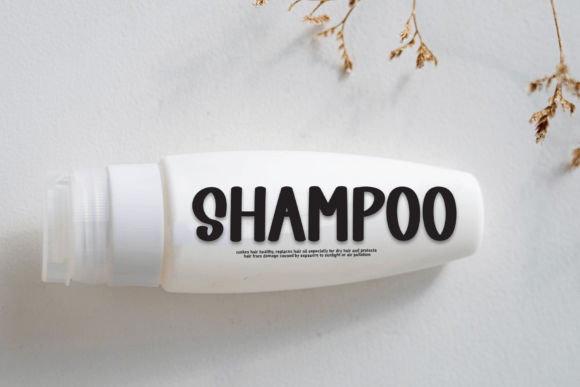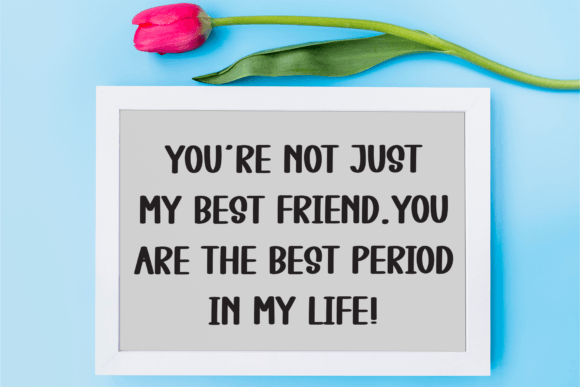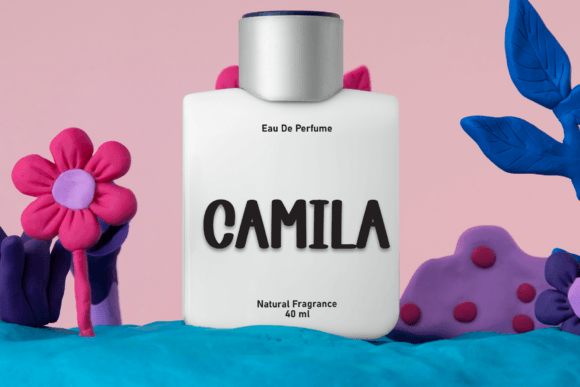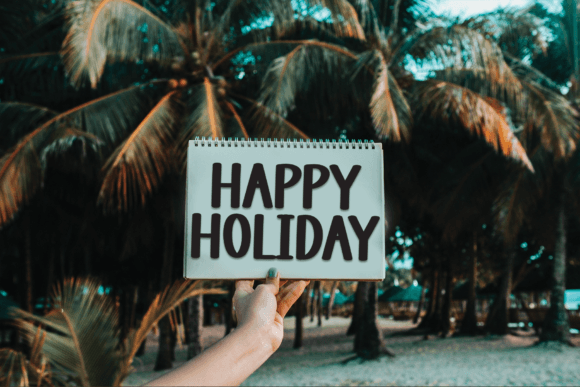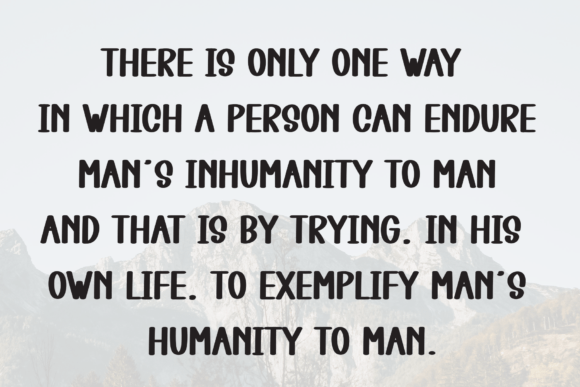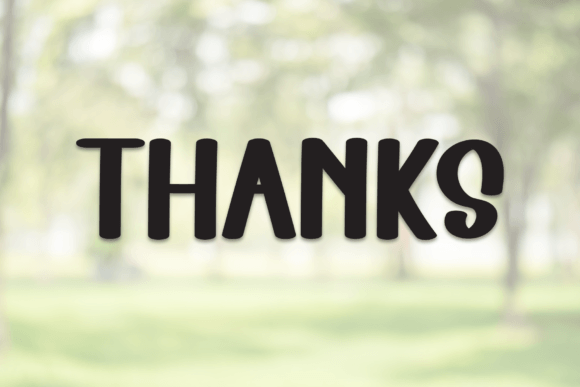
The Garden Font: A Sweet and Friendly Companion for Your Design Journey
I’ll never forget the moment I stumbled upon the Garden font while working on a whimsical garden-themed project for a client. I had spent hours browsing through font libraries, but nothing seemed quite right – until I saw Garden. Its sweet, handwritten charm instantly captured my heart, and I knew I had found the perfect fit. In this article, I’ll share my experience with the Garden font, its unique features, and how to make the most of it in your designs.
An Honest Review of Garden Font
- ✅ The natural and unique style of Garden makes it incredibly versatile for various design projects.
- ✅ Its friendly and approachable vibe is perfect for brands that want to convey warmth and approachability.
- ✅ The font’s handwritten charm adds a personal touch to any design, making it stand out from more generic fonts.
- ⚠️ Some users might find the font a bit too casual for very formal or corporate designs.
- ⚠️ As with any handwritten font, readability might be an issue at very small font sizes.
The Story Behind Garden Font
While I couldn’t find any information on the exact origins of Garden font, I like to imagine that it was created by a designer who loves gardening and nature. Perhaps they wanted to capture the whimsy and charm of handwritten notes and letters in a digital font. Whatever the story, Garden font has undoubtedly become a favorite among designers and crafters alike.
Q: What is the Garden font best suited for?
A: Garden font is perfect for designs that require a friendly, approachable, and whimsical touch, such as garden-themed projects, branding, and packaging.
Q: Is Garden font suitable for body text?
A: While Garden font is beautiful, it’s best suited for headings and titles. For body text, you may want to choose a font with better readability.